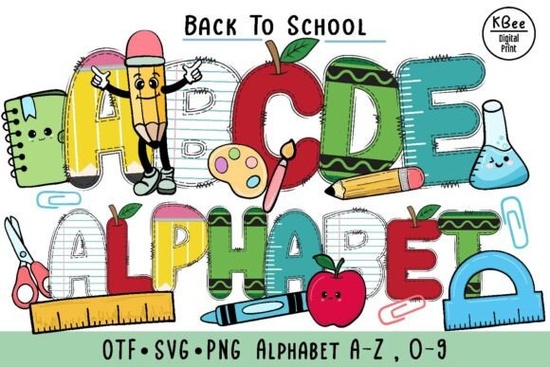
The Back to School Doodle Font is a versatile and fun typeface perfect for anyone looking to add a playful touch to their creative projects. Whether you're designing for a classroom, crafting personalized gifts, or working on digital content, this font offers a unique style that stands out. Its colorful, hand-drawn appearance makes it ideal for back-to-school themes, making it a must-have in your design toolkit.
What Can You Use This Font For?
The Back to School Doodle Font is incredibly flexible. You can use it for greeting cards, invitations, scrapbooking, and even educational posters. It’s also great for creating notebook covers, printing on kids’ shirts, team shirts, mugs, and bags. The font adds a whimsical feel that’s perfect for school-related designs or any project that needs a little creativity.
For designers and small businesses, this font is a valuable addition to your library. It allows you to create eye-catching visuals without needing advanced design skills. Whether you're working on print-on-demand products or digital marketing materials, this font can help bring your ideas to life.
How to Get the Most Out of This Font
To make the most of the Back to School Doodle Font, start by experimenting with different design applications. Try using it in a blog post, social media graphic, or even a custom t-shirt design. The color options give you more flexibility than traditional black-and-white fonts, so don’t be afraid to play around with colors and layouts.
Tips for Using Color Fonts
Another tip is to keep your design clean. While the font is colorful and detailed, it can easily become overwhelming if used too much. Use it as a focal point rather than the background, and pair it with simpler elements for balance.
Whether you're a designer, crafter, or small business owner, the Back to School Doodle Font is a great tool to have in your creative arsenal. Its versatility and fun style make it suitable for a wide range of projects. Start experimenting today and see how this font can bring your ideas to life.